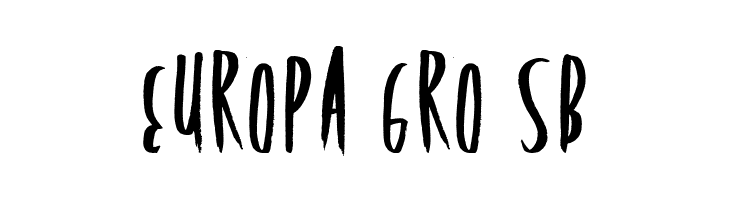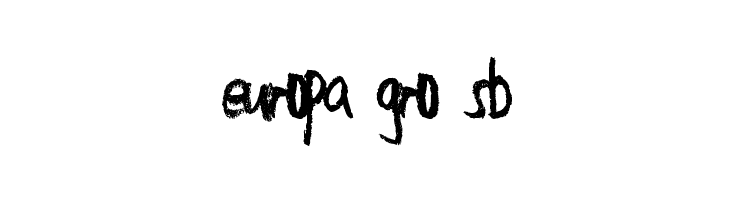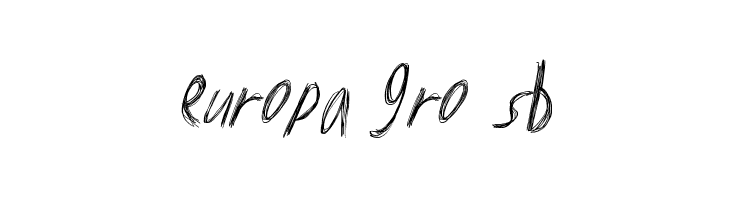
A playful, chaotic handwritten font with uneven strokes and a distressed look.
A playful, hand-drawn font with quirky, uneven letterforms and a casual vibe.
A bold, hand-painted style font with dynamic, uneven strokes.
A playful, hand-drawn crayon-style font with textured, uneven strokes.
A rugged, distressed font with a bold, jagged style and uneven edges.
A scratchy, hand-drawn font with an edgy and artistic style.
A whimsical, hand-drawn font with thin, uneven strokes and a playful style.
A playful, casual handwritten font with uneven strokes and a friendly appearance.